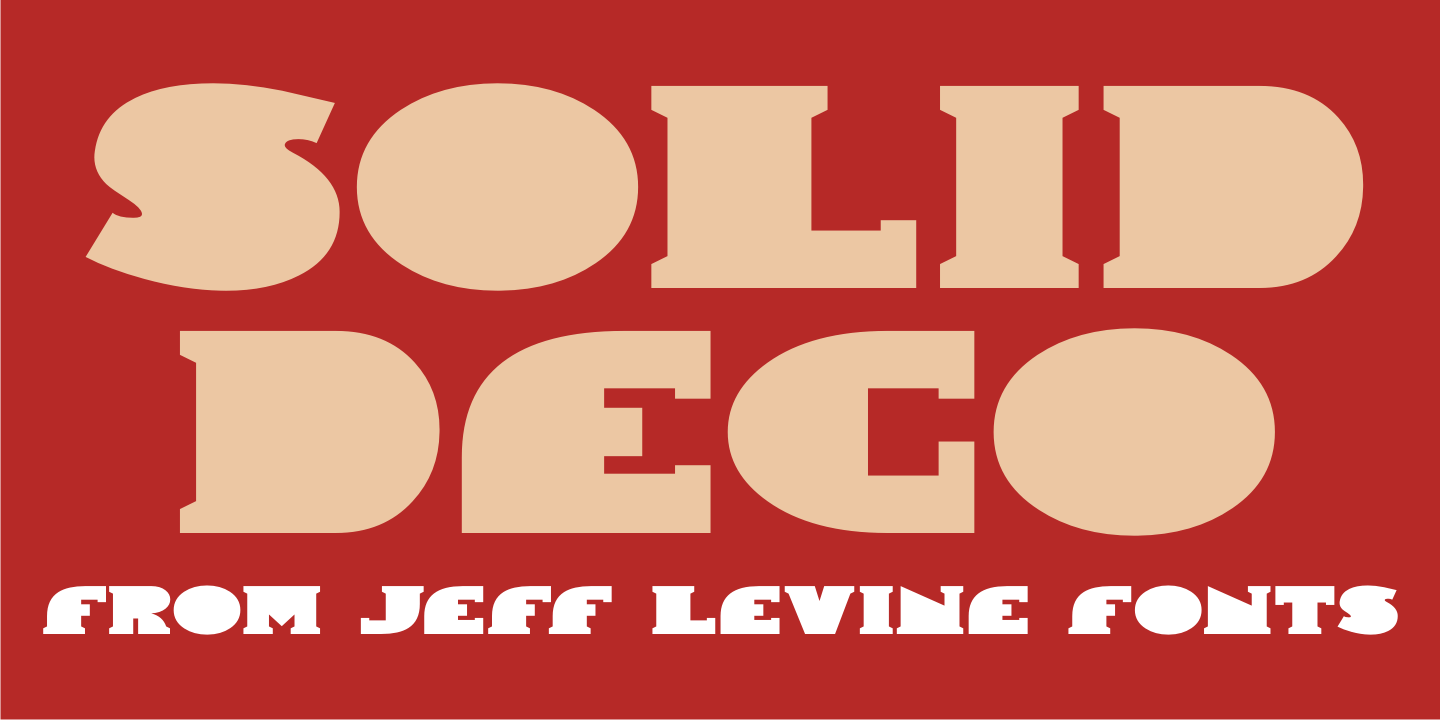
Solid Deco
Solid Deco JNL was modeled after a small sign with the word 'restaurant' in an unusual Art Deco solid lettering style. It was spotted within the same image of the Lenox Lounge in New York which gave forth the neon letters that became Sign Sans JNL.